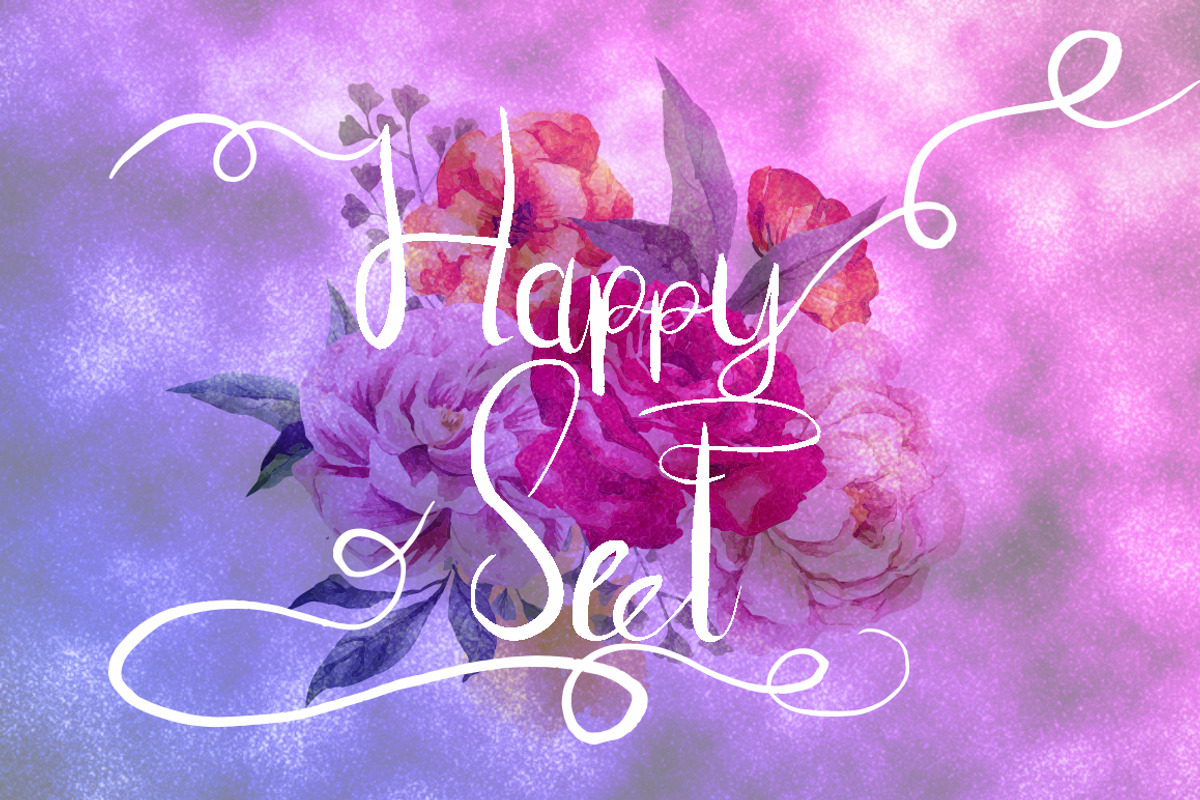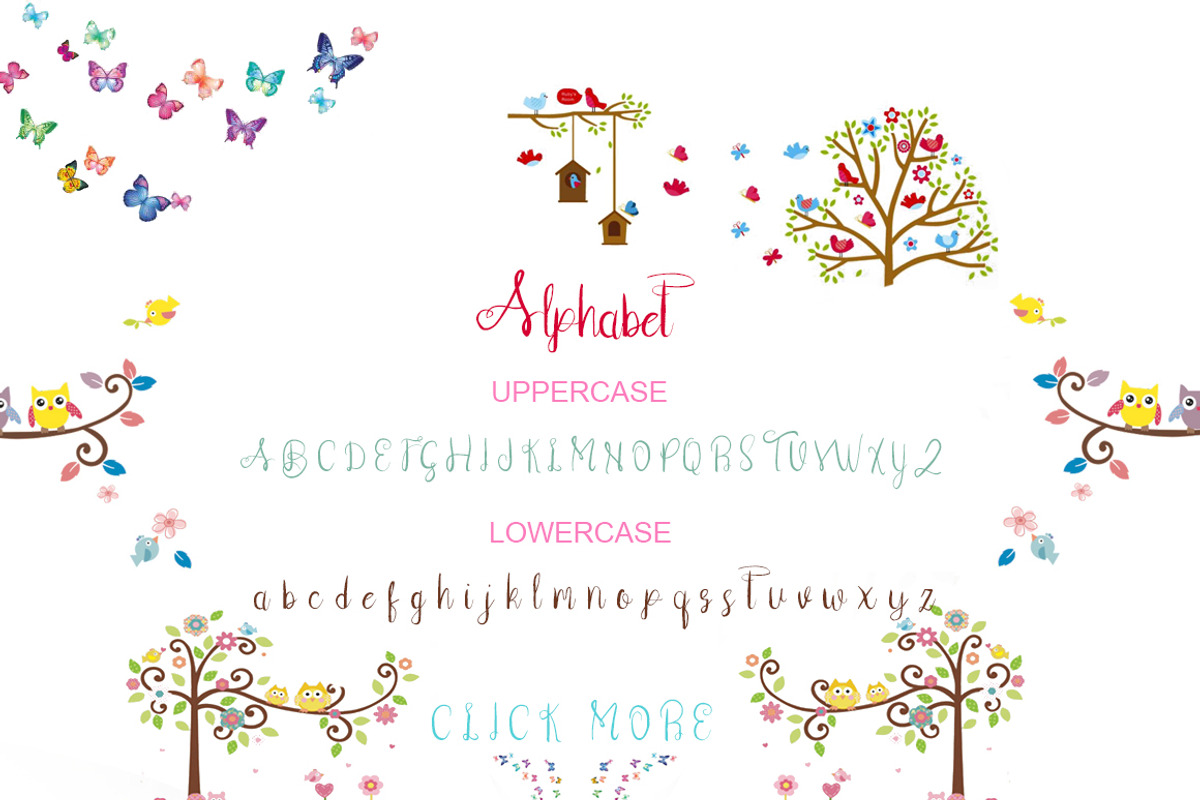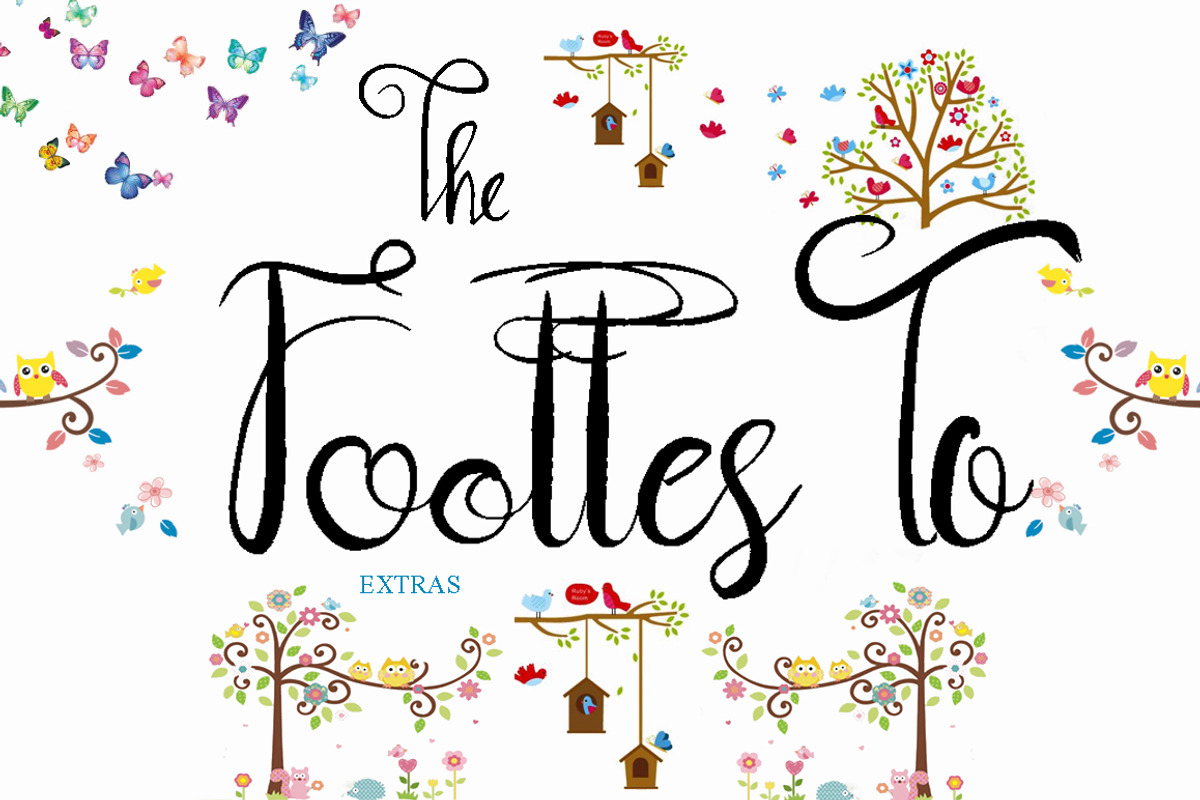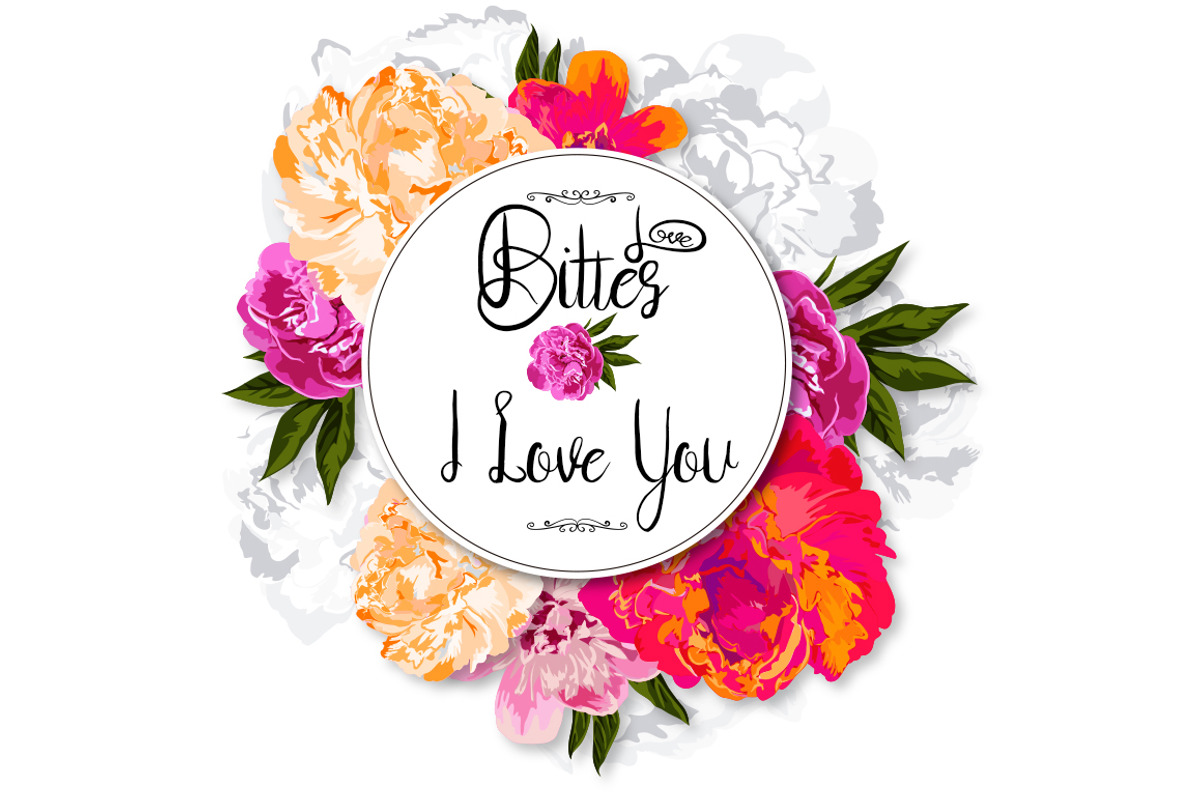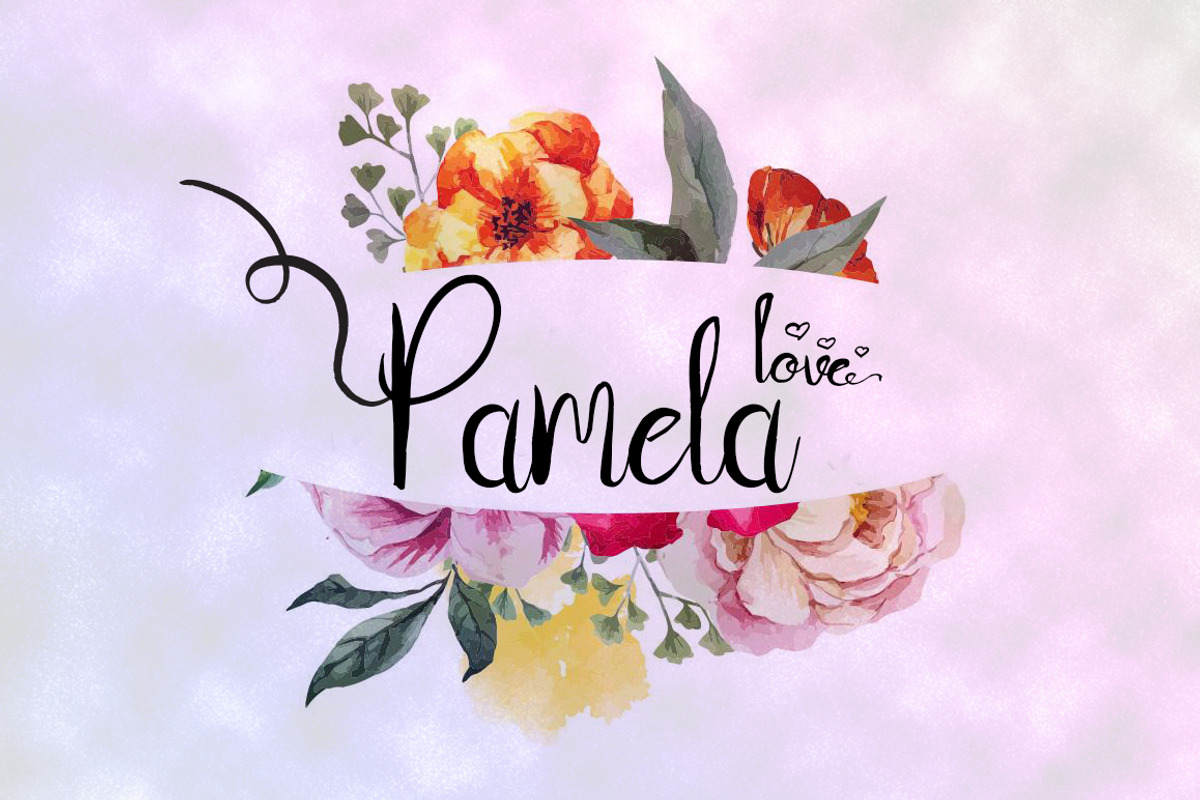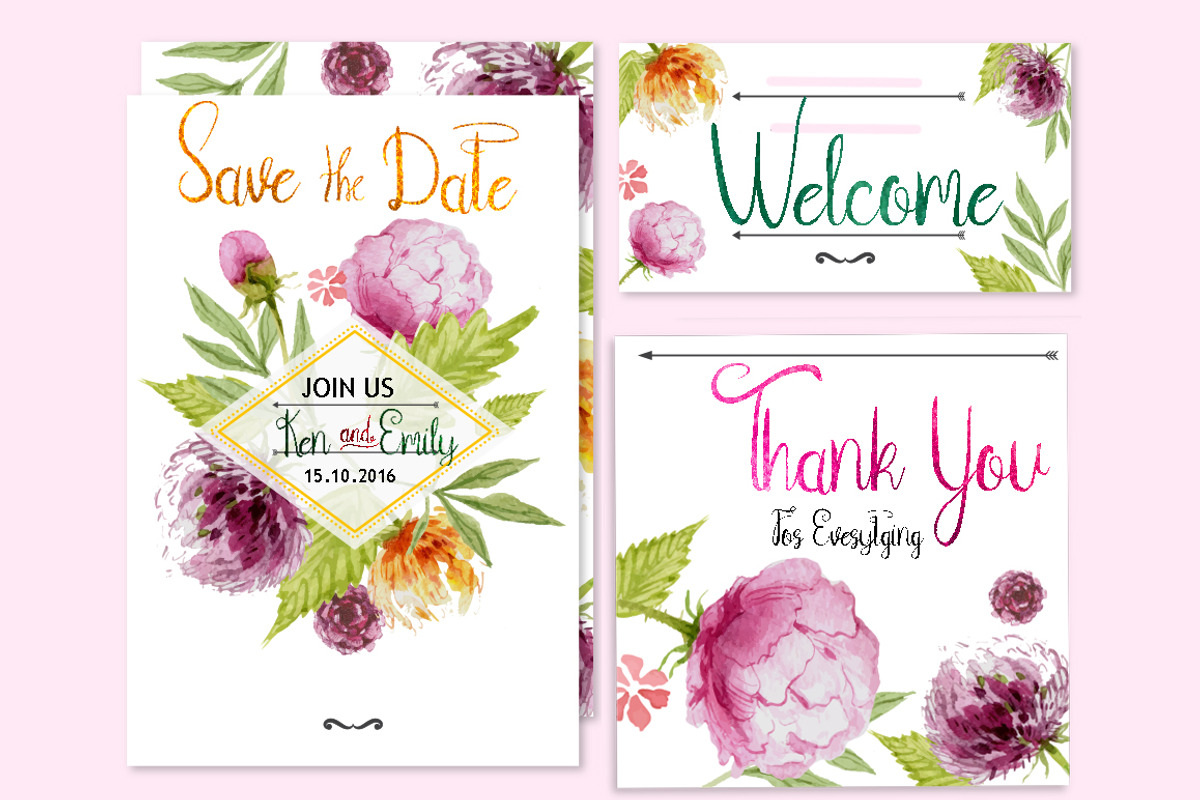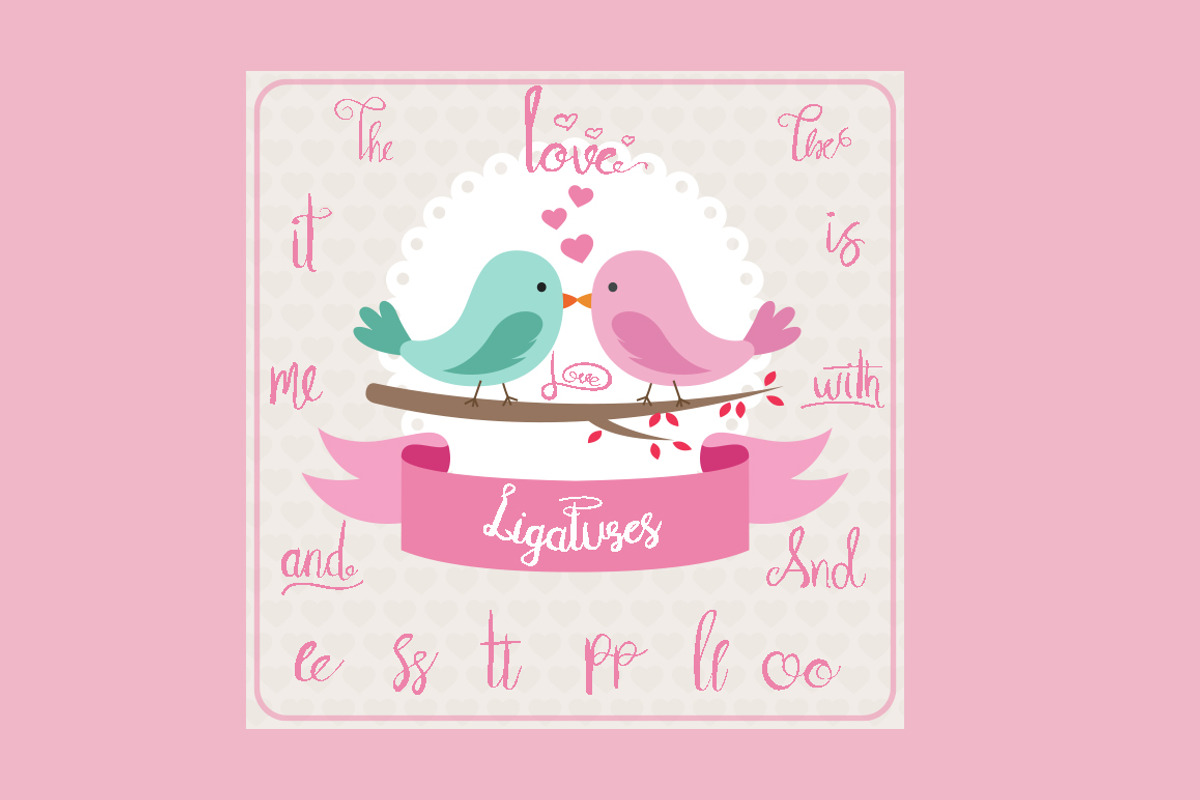
Footes To Script Font
Footes To Script Font by JasmeenPetit is a font selected for branding, posters, packaging, typography.
Why Footes To Script Font is worth a look
Footes To Script Font by JasmeenPetit fits naturally into Branding, posters, packaging, typography.